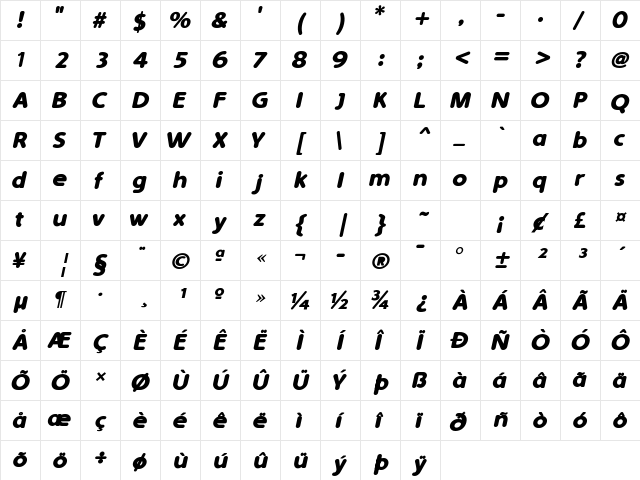
Simply Rounded Bold Italic Font Preview
| Designer | 頇aldino Otten |
Design Context for Simply Rounded Typeface
Simply Rounded uses gentle rounded endings to create a warm, inviting typographic personality — less corporate than geometric sans, more refined than playful display fonts. Its italic angle brings a sense of urgency and motion to the letterforms. The heavy weight commands attention and anchors typographic hierarchies.
A natural fit for tech startups, health and wellness brands, children's products, and friendly consumer apps.
Font Pairing: Pairs well with a rounded or humanist sans for body copy, maintaining the friendly tone without relying on Simply Rounded to carry extended reading.
Pro Tip: Pair Simply Rounded with a geometric sans for a balanced system — the rounded softness works as a warm counterpoint to harder-edged companions.